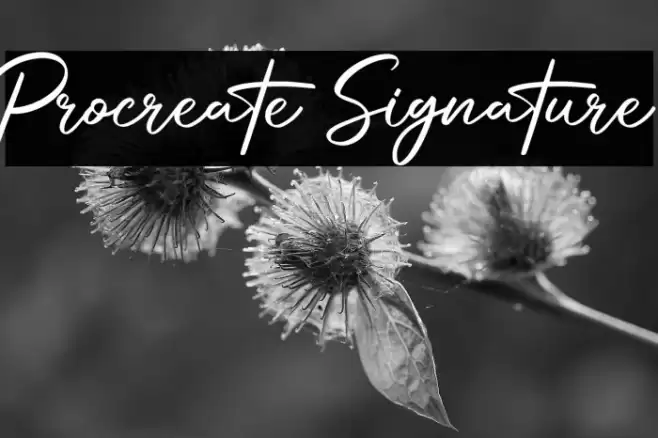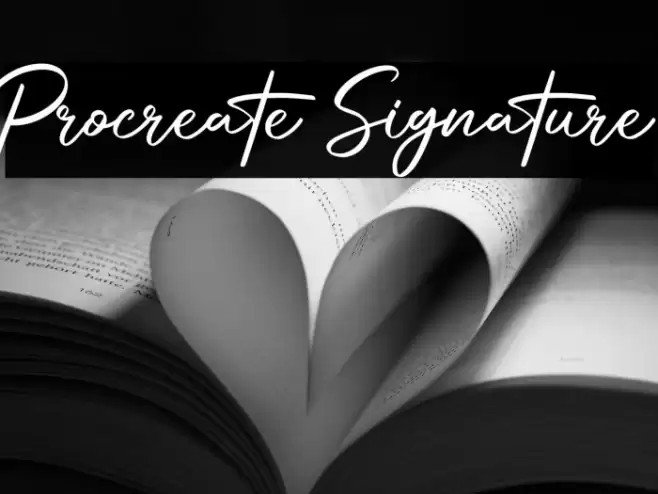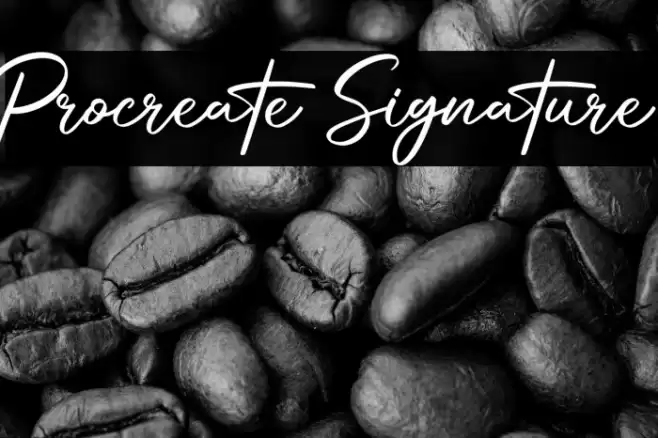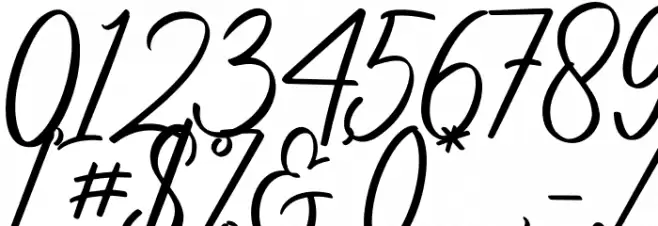
Procreate Signature Font
Procreate Signature Description
This font features a dynamic and fluid script style, reminiscent of elegant handwriting. The uppercase letters are bold and sweeping, with a consistent slant that adds a sense of motion and grace. The lowercase letters are more compact, maintaining the same fluidity and connectedness, which gives the text a cohesive look. Numbers and special characters follow the same stylistic cues, ensuring uniformity across all characters. The strokes are smooth and continuous, with a medium contrast between thick and thin lines, enhancing readability while preserving the handwritten aesthetic.
A fluid and elegant script font with a handwritten style from Regular fonts.
- Font: Procreate Signature
- Proposed Projects: Ideal for wedding invitations, greeting cards, branding projects, and personal signatures.
- Overall Style: Elegant
- Use Case: Logos, Invitations, Personal Signatures